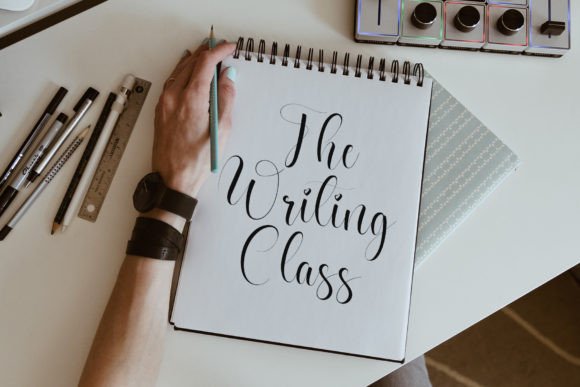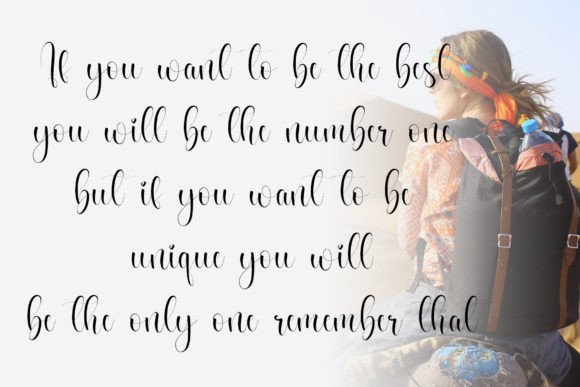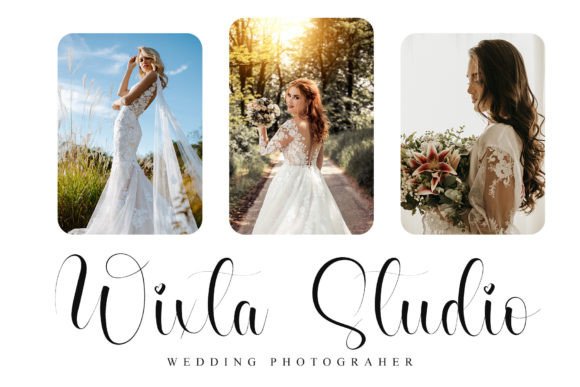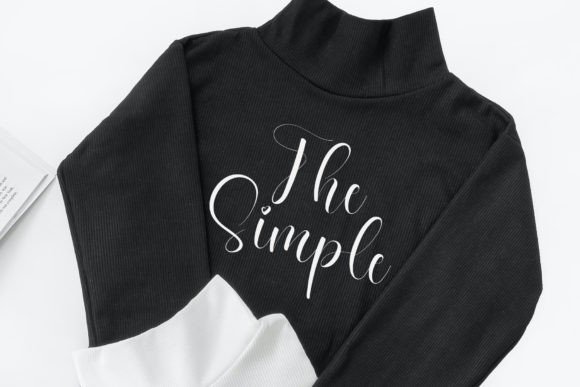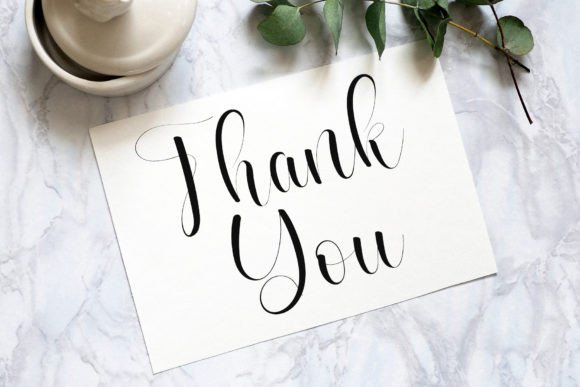
Introducing Fabrication Font: Elevate Your Designs with Timeless Elegance
In the world of typography, a well-crafted font can make all the difference in transforming a design from ordinary to extraordinary. For designers and crafters seeking to add a touch of sophistication and style to their projects, Fabrication Font is an exceptional choice. This stunning handwritten font boasts a contemporary atmosphere and impeccable form, drawing inspiration from timeless classic calligraphy.
The Essence of Fabrication Font
Fabrication Font is a masterfully designed typeface that strikes the perfect balance between elegance and modernity. Its unique, handwritten aesthetic is characterized by flowing lines, subtle variations in letterforms, and a keen attention to detail. This results in a font that exudes refinement and poise, making it an excellent addition to any design project.
Key Features of Fabrication Font
- Contemporary yet Classic: Fabrication Font seamlessly blends modern sensibilities with timeless classic calligraphy, yielding a distinctive and versatile typeface.
- Balanced and Varied: The font’s carefully crafted letterforms ensure a harmonious flow, while its varied strokes and subtle nuances add depth and character to your designs.
- Impeccable Form: With a focus on precision and attention to detail, Fabrication Font showcases impeccable form, elevating your projects with a sense of sophistication.
- Handwritten Aesthetic: The font’s handwritten essence injects a personal touch into your designs, making them more approachable and engaging.
Applications of Fabrication Font
Fabrication Font’s versatility makes it an excellent choice for a wide range of design applications, including:
- Branding and Logo Design: Create a lasting impression with a custom logo that showcases your brand’s personality and style.
- Stationery and Invitations: Add a touch of elegance to your stationery, invitations, and greeting cards.
- Digital and Print Media: Enhance your website, social media, or print materials with Fabrication Font’s distinctive charm.
- Crafting and DIY Projects: Elevate your crafting and DIY projects, such as handmade cards, journals, or scrapbooking, with this beautiful font.
Why Choose Fabrication Font?
- Unique Style: Its distinctive, handwritten aesthetic sets it apart from more traditional typefaces.
- High-Quality Design: Crafted with precision and attention to detail, Fabrication Font ensures a professional finish for your designs.
- Versatility: Suitable for a wide range of applications, from digital design to crafting and DIY projects.
Fabrication Font is a stylish and sophisticated typeface that brings a touch of timeless elegance to your designs. Its unique blend of contemporary and classic elements, combined with its impeccable form and handwritten aesthetic, make it an excellent choice for designers and crafters seeking to elevate their projects. Whether you’re working on branding, stationery, digital media, or crafting, Fabrication Font is sure to enhance the beauty of your creations.